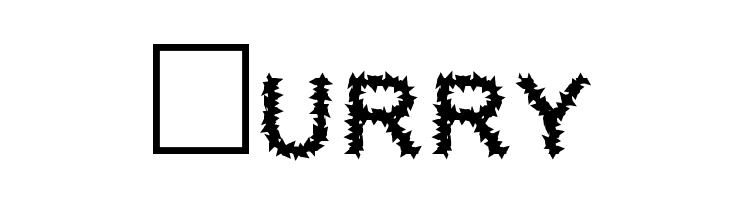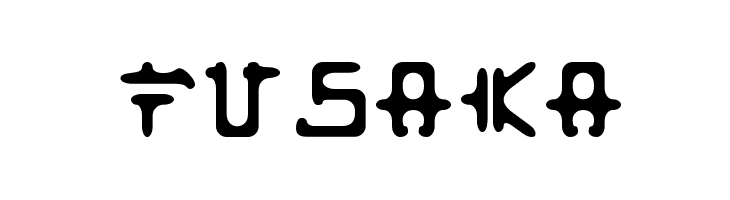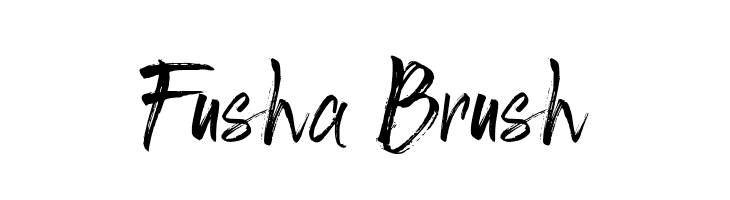
• Fusaka schriftart
• Fusha Brush schriftart
A dynamic brush-style font with expressive, energetic strokes.
• Fushi RegularE schriftart
A jagged, hand-drawn font with an organic, edgy style.
• Fusion schriftart
A bold, decorative font with a blend of modern and vintage styles.
• Fusion schriftart
A bold, futuristic font with a geometric and technological design.
• Fusion Italic schriftart
A modern, italic font with bold, geometric characters and a futuristic style.
• Fusion Italic schriftart
A bold, dynamic italic font with expressive, flowing letterforms.
• Fussion schriftart
A futuristic and geometric font with bold, angular letterforms.
• FusterdBonus-Regular schriftart
A decorative, cursive font with artistic, hand-drawn qualities.
• FusterdBonus-Regular schriftart
A decorative, cursive script with fluid strokes and a textured, handcrafted feel.